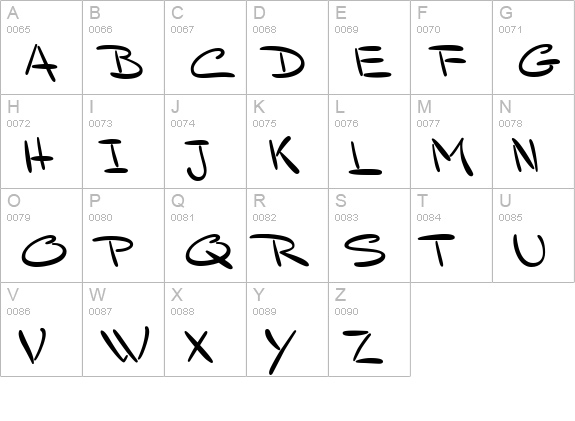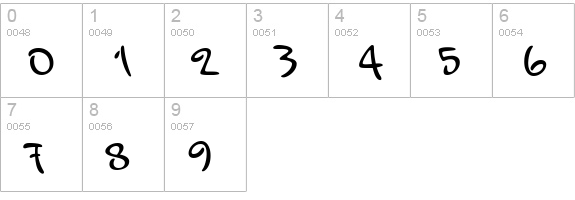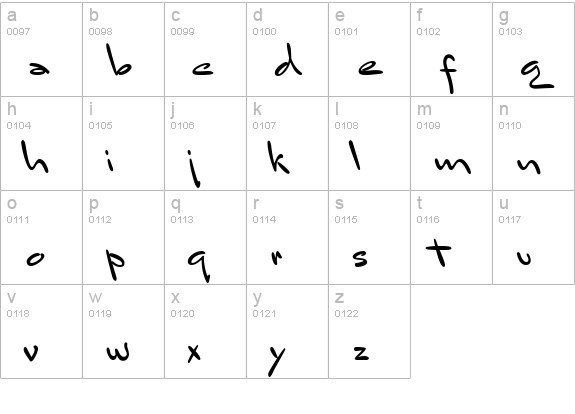
Mr Sandsfort Font Details
Introducing Mr Sandsfort font, a stylish and versatile typeface that exudes elegance and sophistication. This modern font features sleek lines and a timeless appeal, making it perfect for a wide range of design projects. Whether you're creating invitations, branding materials, or website designs, Mr Sandsfort font is sure to make a lasting impression. The best part? Mr Sandsfort font is completely free to download at FontsMarket.com. Now you can add a touch of class to your projects without breaking the bank. Don't miss out on this fantastic opportunity to elevate your designs with the beautiful Mr Sandsfort font. Download it today and start creating stunning visuals that will leave a lasting impact.